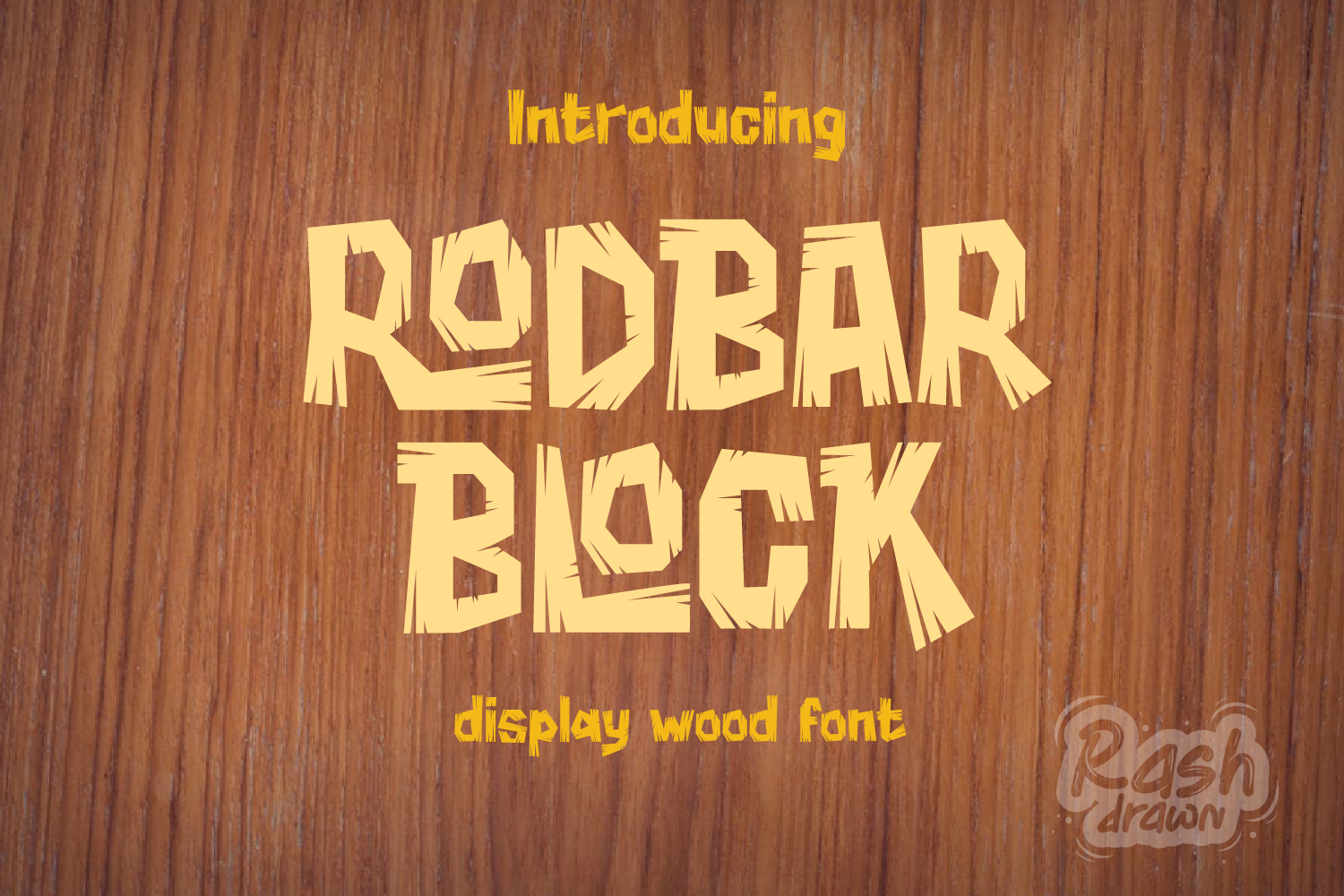
Rodbar Block
Introducing Rodbar Block, a wood display typeface take on aline style, Rodblock font have unique shape on selective character, that's sure make your design stand out. Use Rodbar Block for most any space of graphic design, from logo todisplay design.